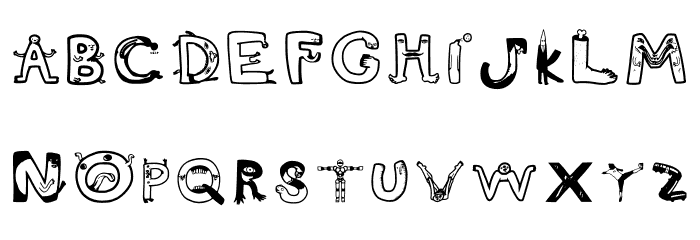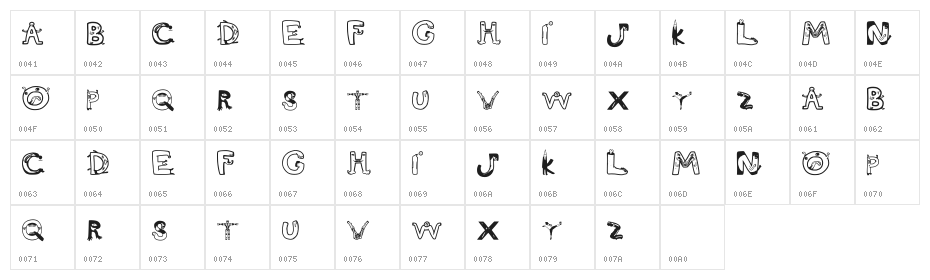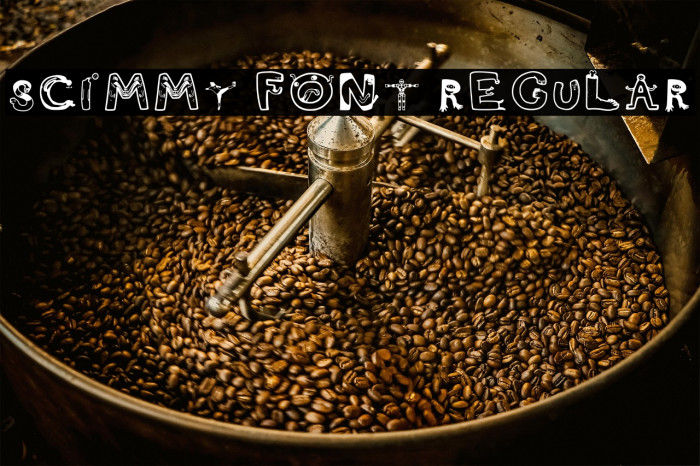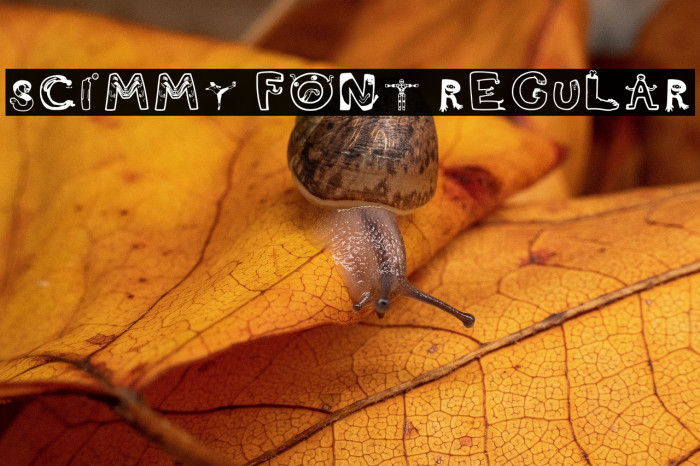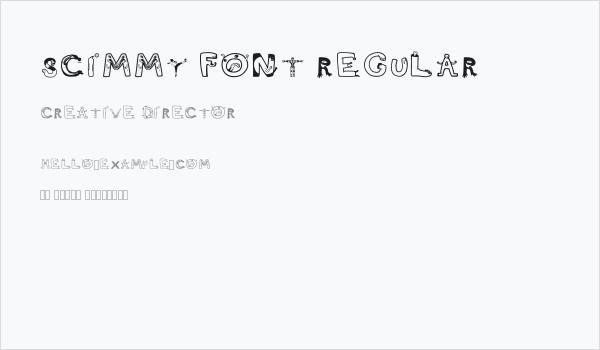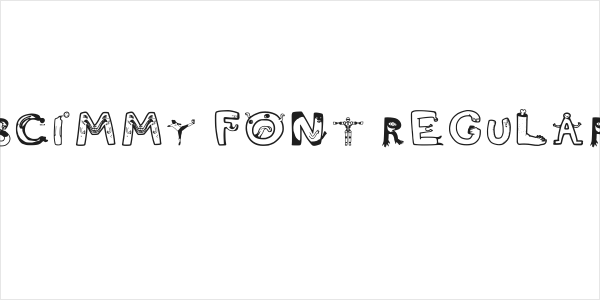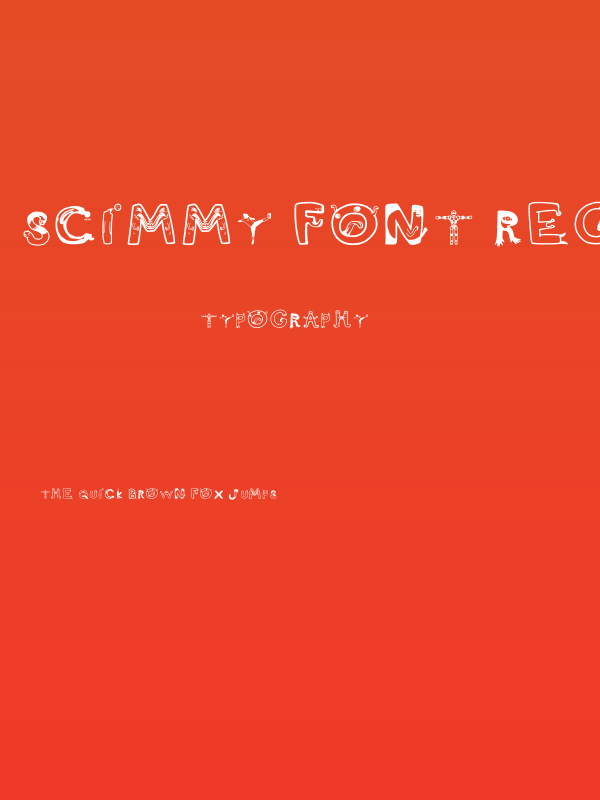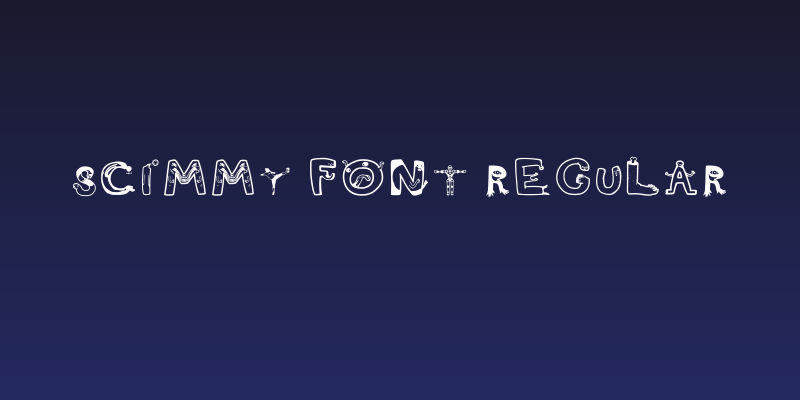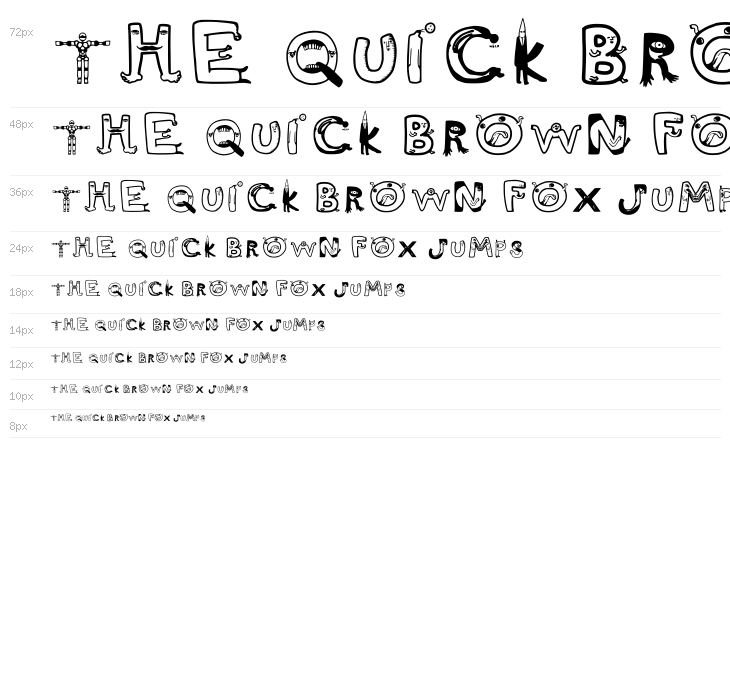
Scimmy Font Regular Font
Scimmy Font Regular Description
This font is a playful and whimsical display typeface, characterized by its unique and quirky design elements. Each letter is crafted with distinct, imaginative details that give it a lively and animated appearance. The font features a mix of bold and thin strokes, with some letters incorporating illustrative elements that resemble doodles or sketches. This creates a dynamic and engaging visual effect, making it ideal for creative projects. The font's irregular shapes and varying line weights contribute to its overall charm and artistic flair, making it stand out in any design context.
| Proposed Projects | Ideal for children's books, playful branding, creative posters, and artistic invitations. |